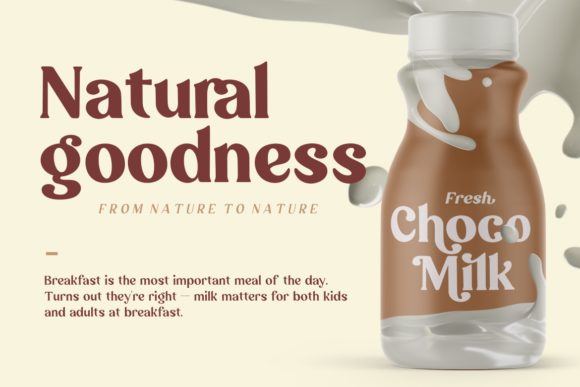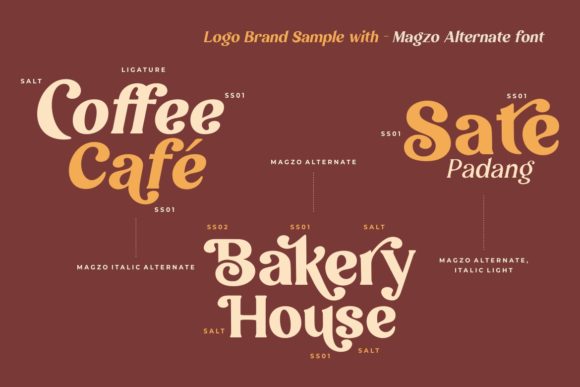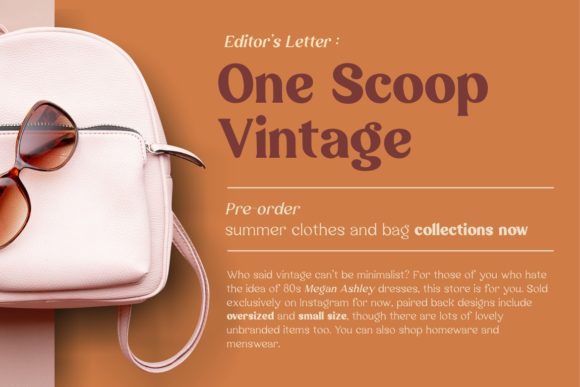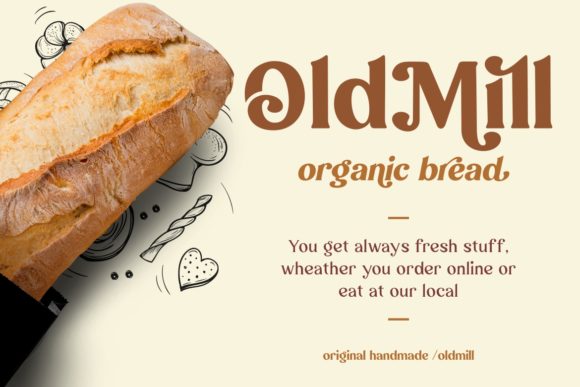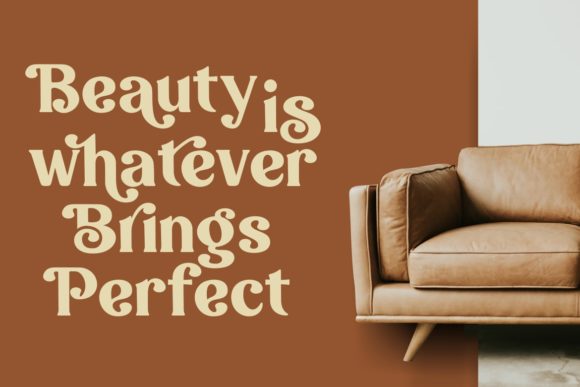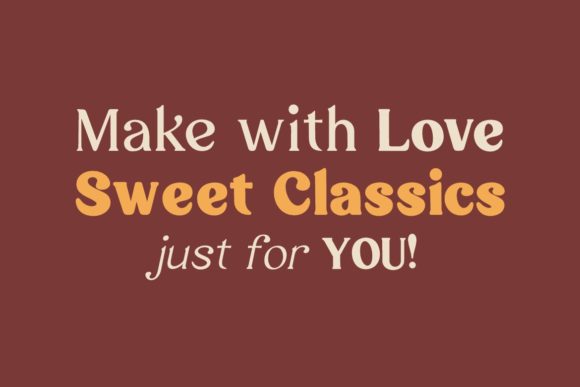
Introduction to Magzo Font
Magzo is an incredibly unique and bold display font.
Key Features of Magzo Font
Why Choose Magzo Font?
Magzo Font offers exceptional quality and versatility, making it a valuable addition to your design toolkit. Whether you’re creating for personal projects or commercial use, Magzo Font delivers professional results.